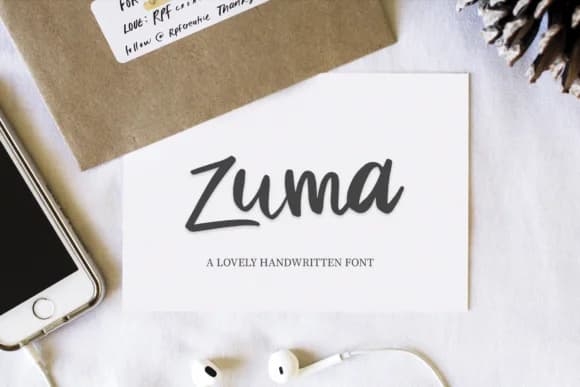
Zuma Font by Alejandra is a smooth handwritten script that brings authentic character and natural warmth to digital and print projects alike. The fluid letterforms and brushwork create a personal touch without sacrificing legibility, making it versatile for both elegant and casual applications where genuine connection enhances the overall design. This typeface shines in wedding invitation suites, where its approachable script style communicates sophistication with warmth and sincerity. It's equally compelling for boutique branding projects that demand a handcrafted aesthetic, whether designing logo marks for artisanal small businesses or building cohesive identity systems. The font excels in greeting card layouts, personalized stationery designs, and artisanal product packaging, from handmade soap labels to specialty food branding. Social media graphics benefit from Zuma's natural rhythm and personality, maintaining readability even on smaller screens while commanding genuine visual interest. The typeface's smooth construction ensures clean, consistent rendering across digital platforms and in print, with letterforms that preserve the handwritten quality throughout extended passages. Whether developing a complete brand identity, designing event materials, or creating personalized social content, Zuma delivers an authentic handwritten aesthetic that feels both fresh and approachable. Get Zuma Font on Creative Fabrica to add this versatile handwritten script to your design collection.
Zuma Font is a script font that shines as a display or heading face. Pair it with a clean sans-serif or serif font for body text β the contrast creates a clear hierarchy while the two styles stay balanced and easy to read.
Zuma Font